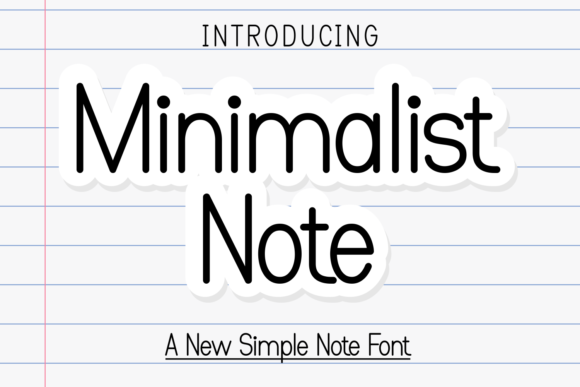
Introducing Minimalist Note Font, the epitome of elegance and simplicity in the world of fonts. As the Best Font for Posters, this sans serif masterpiece, created by the renowned Rydmaker (7NTypes), is designed to captivate and inspire.
With its minimalistic charm, Minimalist Note Font effortlessly adds a touch of sophistication to any design project. Its sleek and clean lines make it the perfect choice for those seeking a font that exudes professionalism and refinement. Whether you're working on a corporate brochure, a minimalist website, or a stylish logo, this font will elevate your creations to new heights.
One of the greatest strengths of Minimalist Note Font lies in its versatility. It seamlessly adapts to various design styles, effortlessly blending with any concept you have in mind. From modern and edgy to timeless and classic, this font has the ability to enhance the visual impact of your work, making it truly unforgettable.
But what sets Minimalist Note Font apart from the rest? Its simplicity speaks volumes. With an air of understated elegance, this font captures attention without overpowering the overall design. It allows your message to take center stage, ensuring that your audience is captivated by the content and not distracted by flamboyant typography.
Minimalist Note Font is more than just a font; it's a creative companion that sparks inspiration. Its versatility extends beyond the digital realm, making it equally stunning in print. From posters to invitations, this font transforms ordinary words into art, leaving a lasting impression on anyone who beholds it.
Unlock your creative potential with Minimalist Note Font. Embrace its sleek and stylish nature, and watch as your designs come to life with unparalleled grace and sophistication. Perfectly suited for both personal and professional projects, this font is a must-have for designers and creators alike.
Discover the power of Minimalist Note Font today and experience the magic it brings to your creative endeavors. Let your imagination run wild and create masterpieces that leave a lasting impact. Elevate your designs with this captivating font and let your creativity soar.